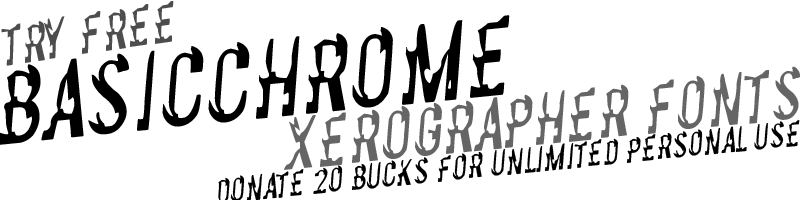
Preview and download Basic Chrome Font. Created by Xerographer Fonts in Fancy Decorative styles with Donationware license.
BasicChrome! A simple chrome font 3d like! only 9KB! Unlimited Personal Use: donate paypal $20 to maxinfeld@hotmail.com add XEROGRAPHER on FB www.facebook.com/infeld |